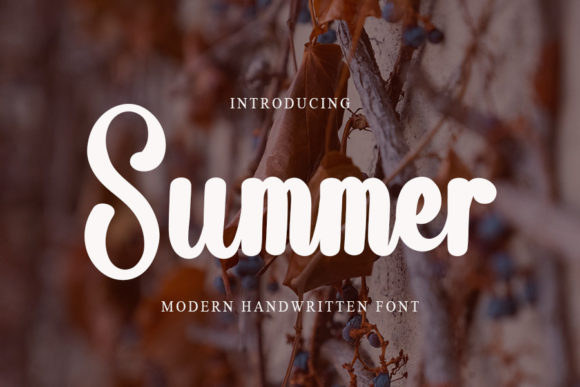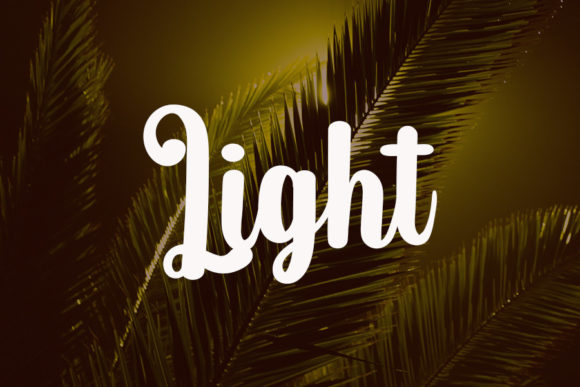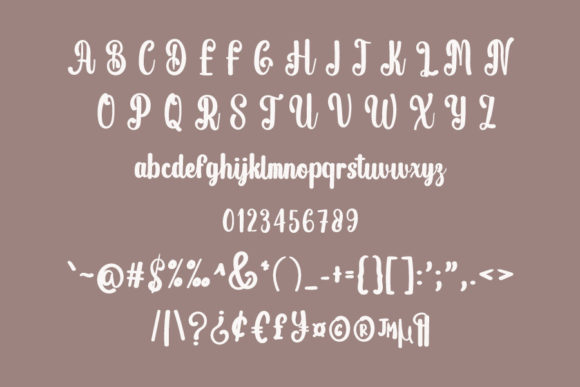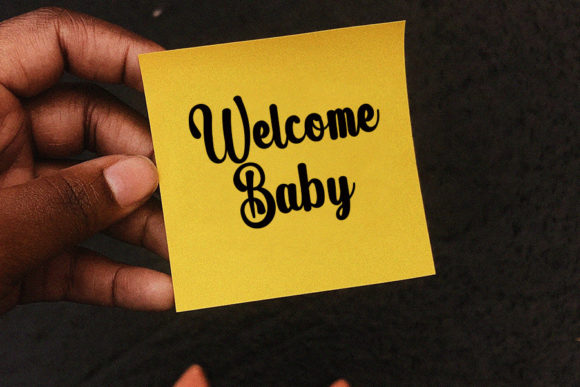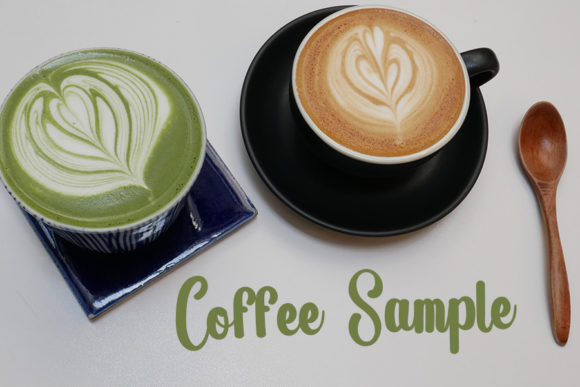
Summer Font
About Summer Font
Summer is a cool handwritten font with a modern vibe and spotless form, drawing inspiration from classic calligraphy. Striking a balance between not being too thin or too thick, this font offers a harmonious and varied design. It was carefully crafted to enhance the beauty of your projects, providing a versatile and stylish option for a wide range of applications.
The modern vibe of Summer makes it a chic choice for various design projects. Whether used for branding, product packaging, invitations, or any creative endeavor, this font brings a fresh and contemporary aesthetic to the forefront.
Drawing from classic calligraphy, Summer maintains a timeless elegance while infusing a sense of modernity. The balanced and varied strokes contribute to a distinctive and eye-catching look, allowing the font to stand out in diverse design contexts.
In branding projects, Summer proves to be a versatile asset, offering a stylish and memorable visual identity. Its modern yet classic appeal enhances the overall perception of a brand, making it visually appealing to a broad audience.
In product packaging, Summer adds a touch of sophistication and style, making your products stand out on the shelves. The clean and varied design of the font imparts a sense of professionalism and creativity to your packaging.
Invitations, stationery, and other creative projects benefit from Summer’s adaptability. The font’s cool handwritten style elevates the overall aesthetic, making it suitable for a wide range of design applications.
Choose Summer when you want a font that combines a cool handwritten style with a modern vibe and a nod to classic calligraphy. Let this font be the key to enhancing the beauty of your projects, providing a stylish and versatile option for your creative endeavors.